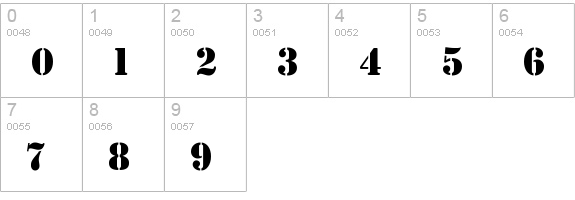
Stencil MN Font Details
Stencil MN font is a classic typeface known for its bold and impactful appearance. With its distinctive stencil design, this font exudes a sense of strength and authority, making it a popular choice for a variety of design projects. The clean lines and sharp edges of Stencil MN font add a touch of modernity and sophistication to any text or graphic. What makes Stencil MN font even more appealing is that it is available for free download at FontsMarket.com. This means that you can easily access this stylish font without any cost, making it a valuable addition to your font collection. Whether you're working on a poster, logo, or any other creative project, Stencil MN font is sure to make a bold statement and leave a lasting impression. Download this versatile and eye-catching font today and elevate your designs with its unique style and character.